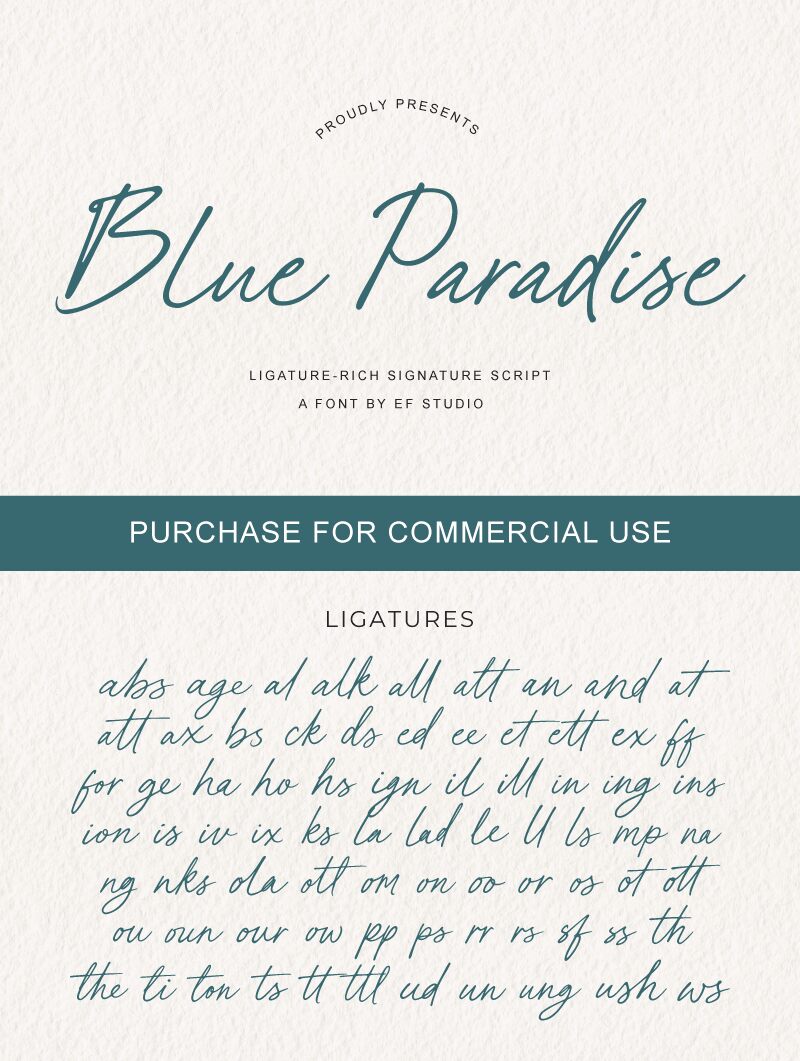
Blue Paradise font from Ef Studio is a free handwritten font characterized by elegant, expressive, flowing, contemporary letters. A sophisticated typeface that spreads casual elegance in its natural look while drawing attention wherever it is used.
The font’s appearance makes it great for book covers, greeting cards, journals, personalized diaries typography, logotype creation, signature branding, product labels and packaging design and much more. It is also excellent in cosmetics design or fashion styles projects in general.
Features: 77 Ligatures